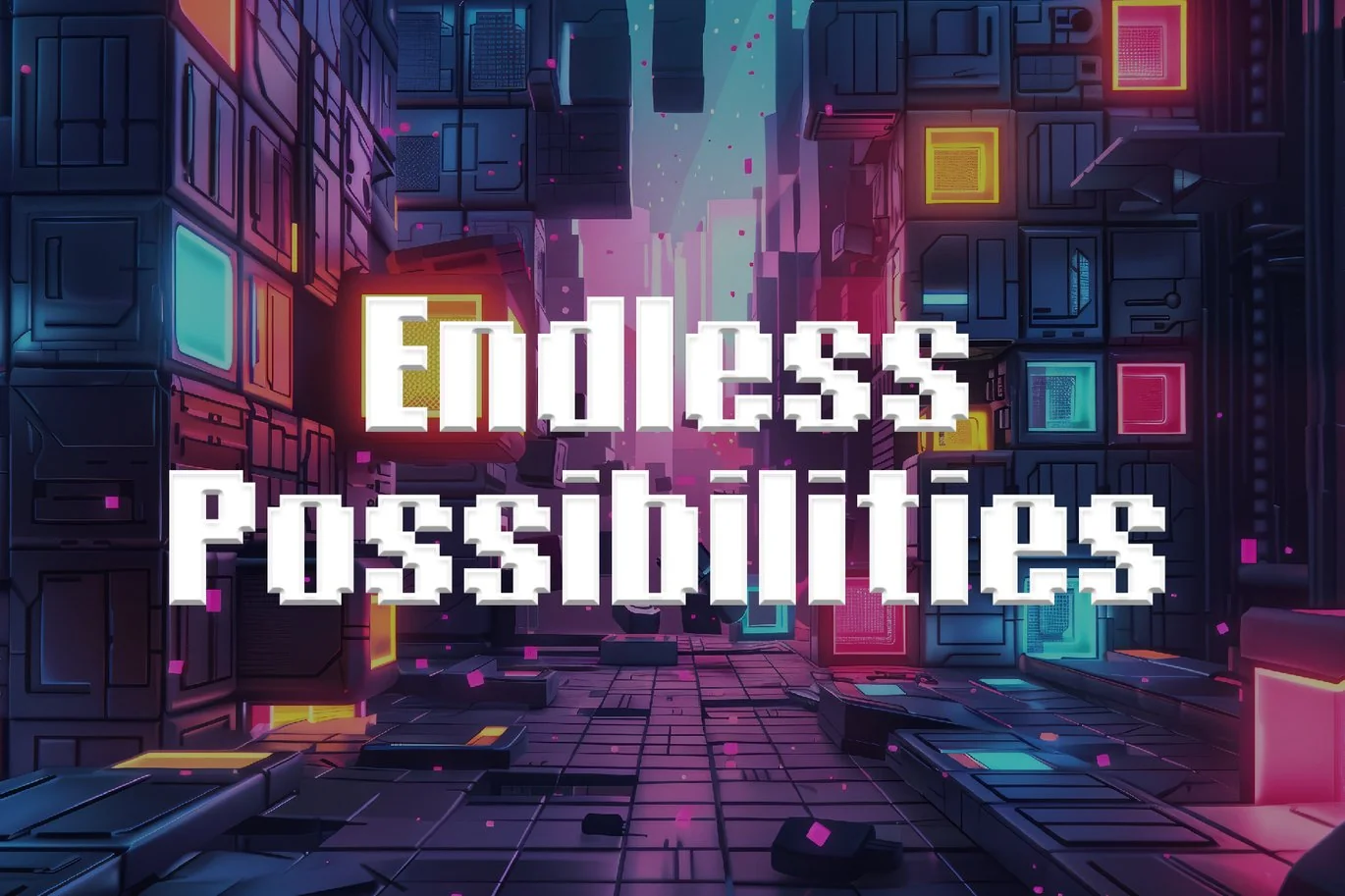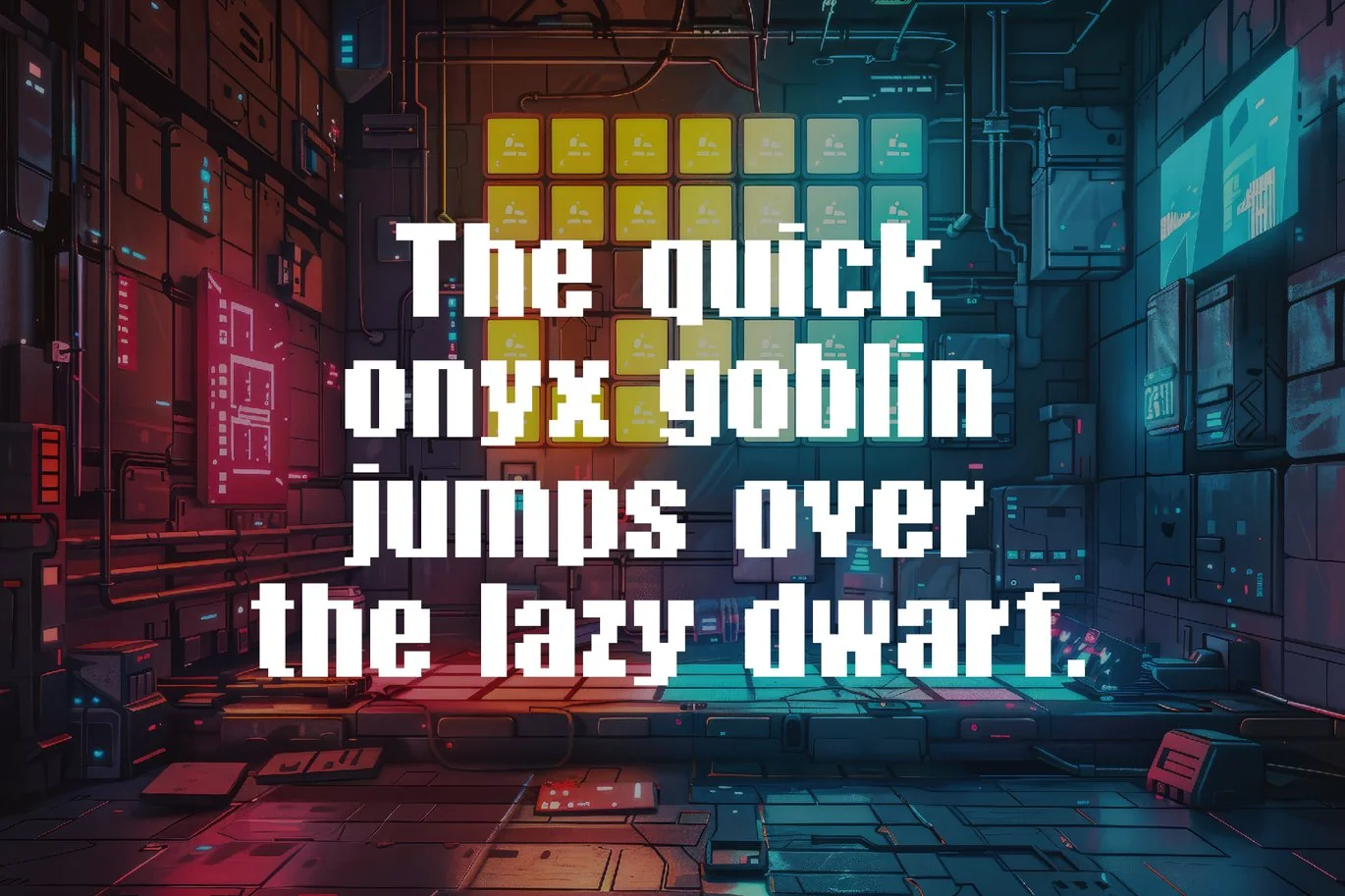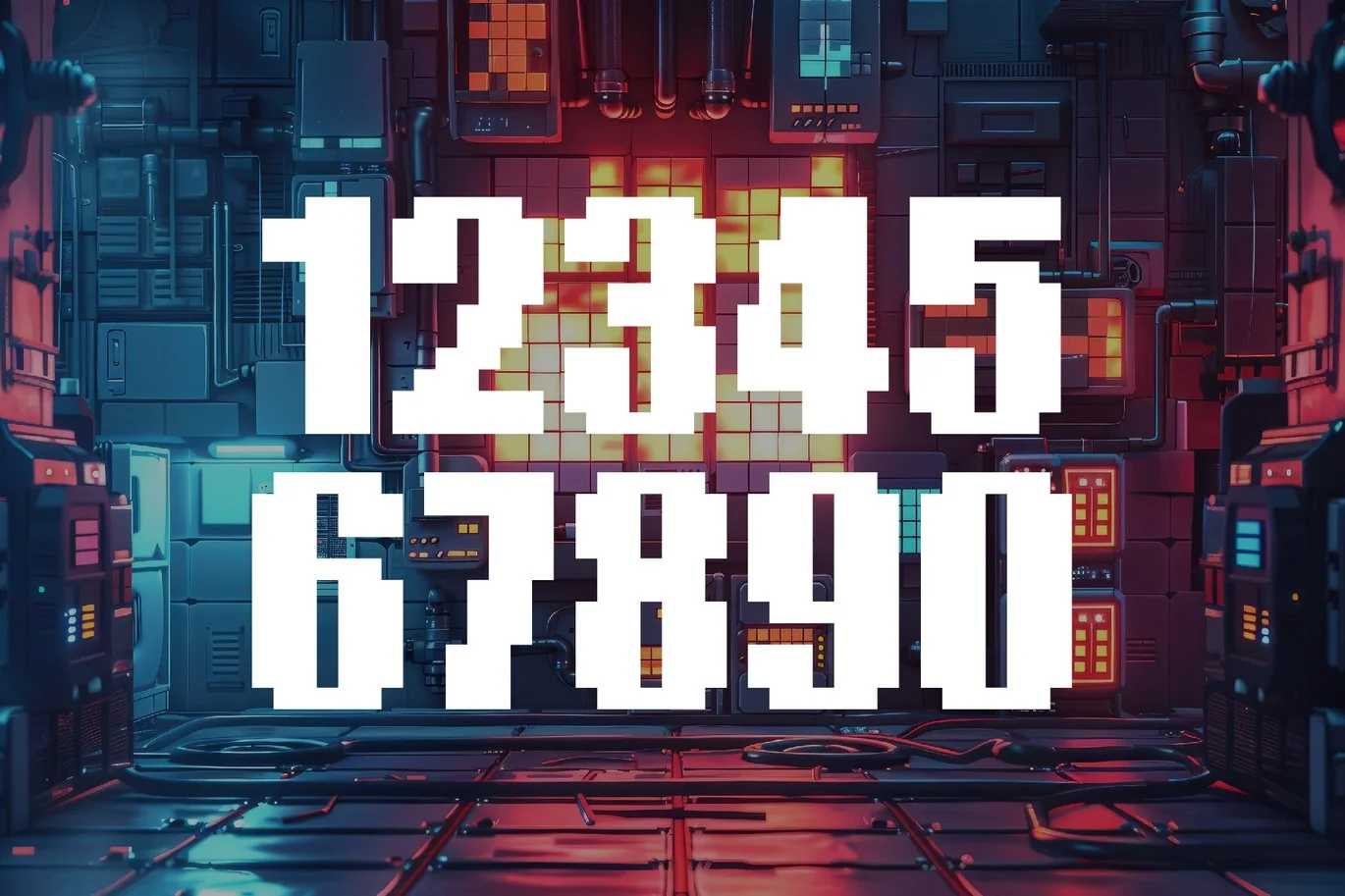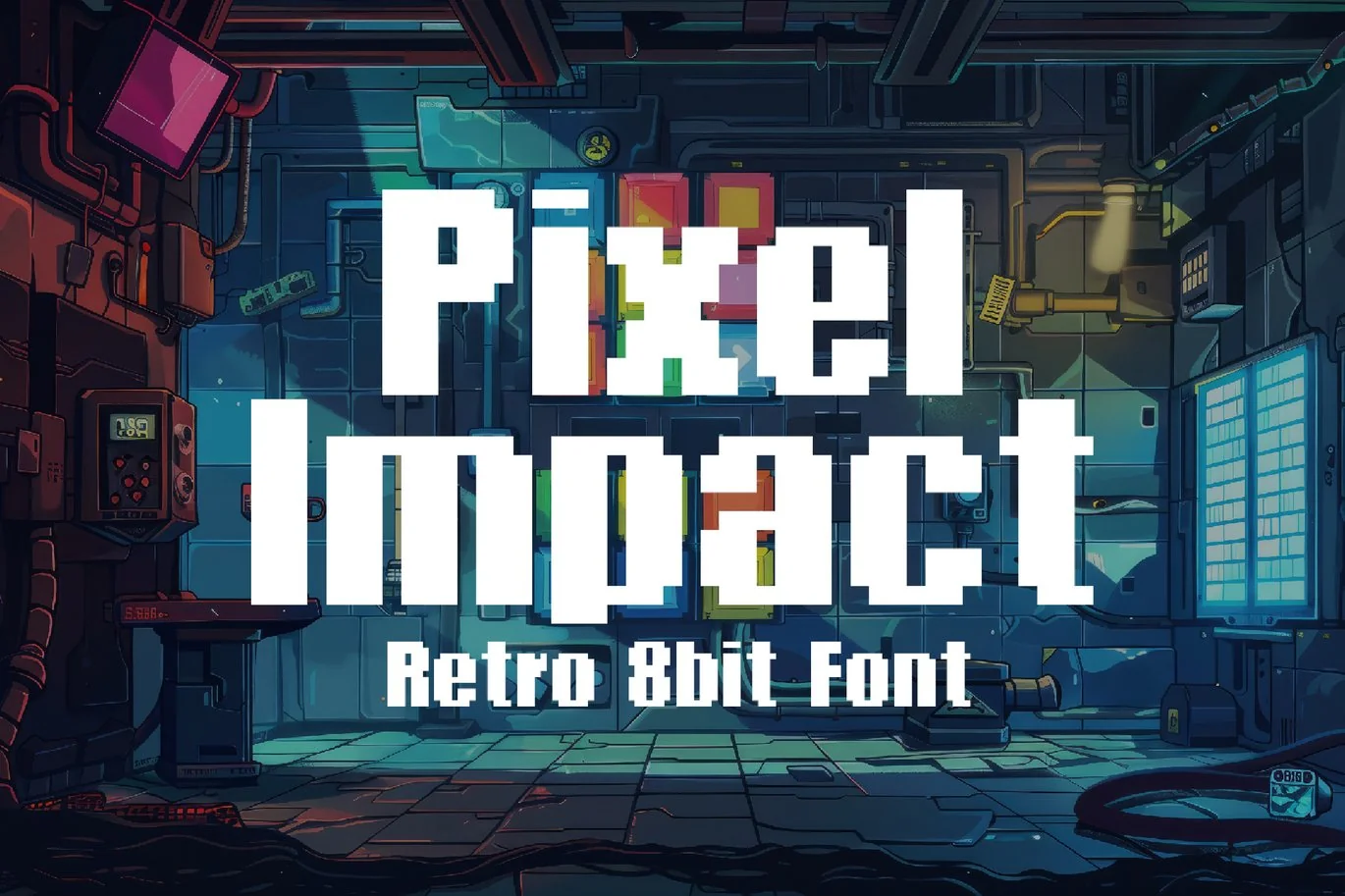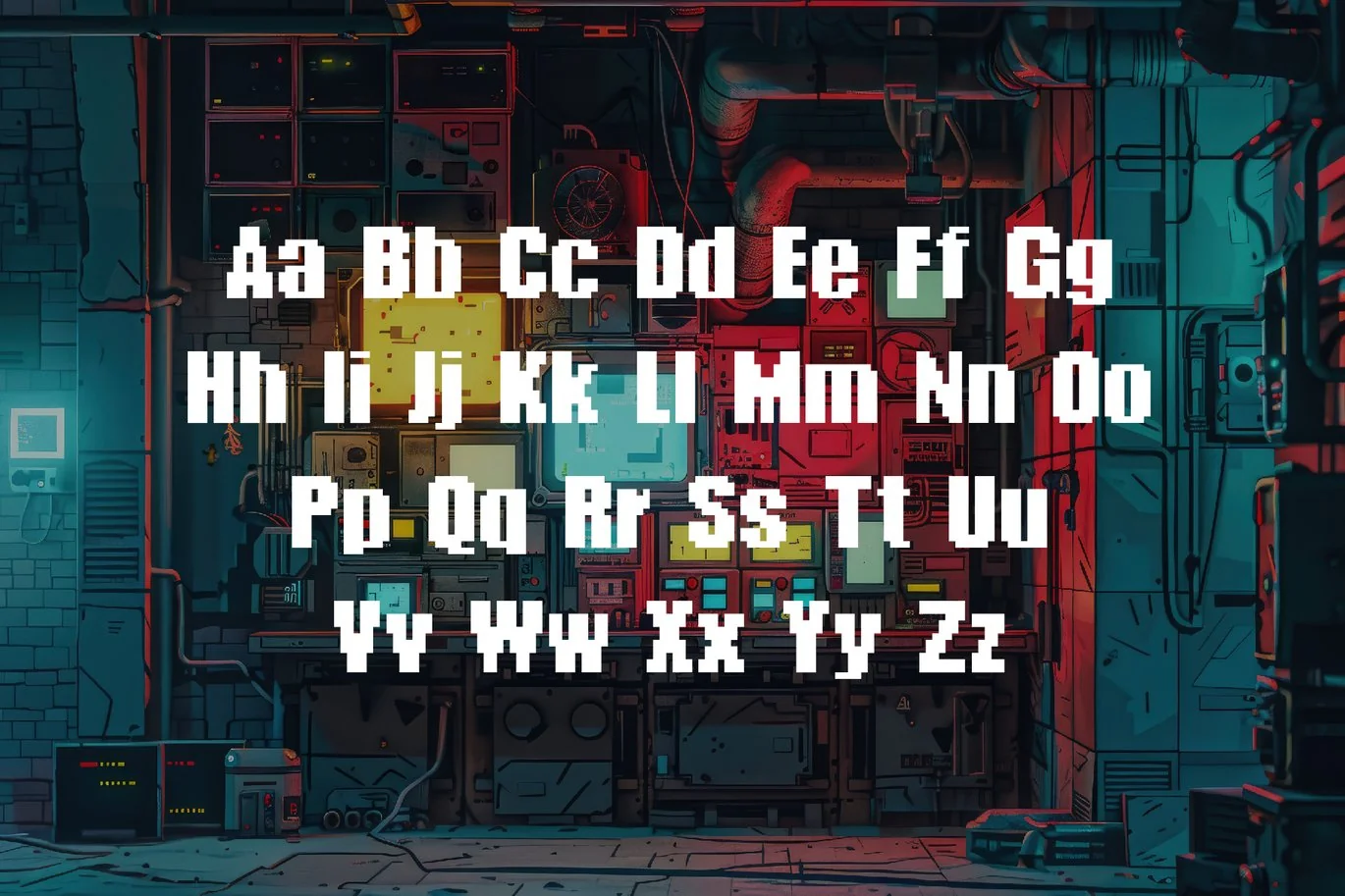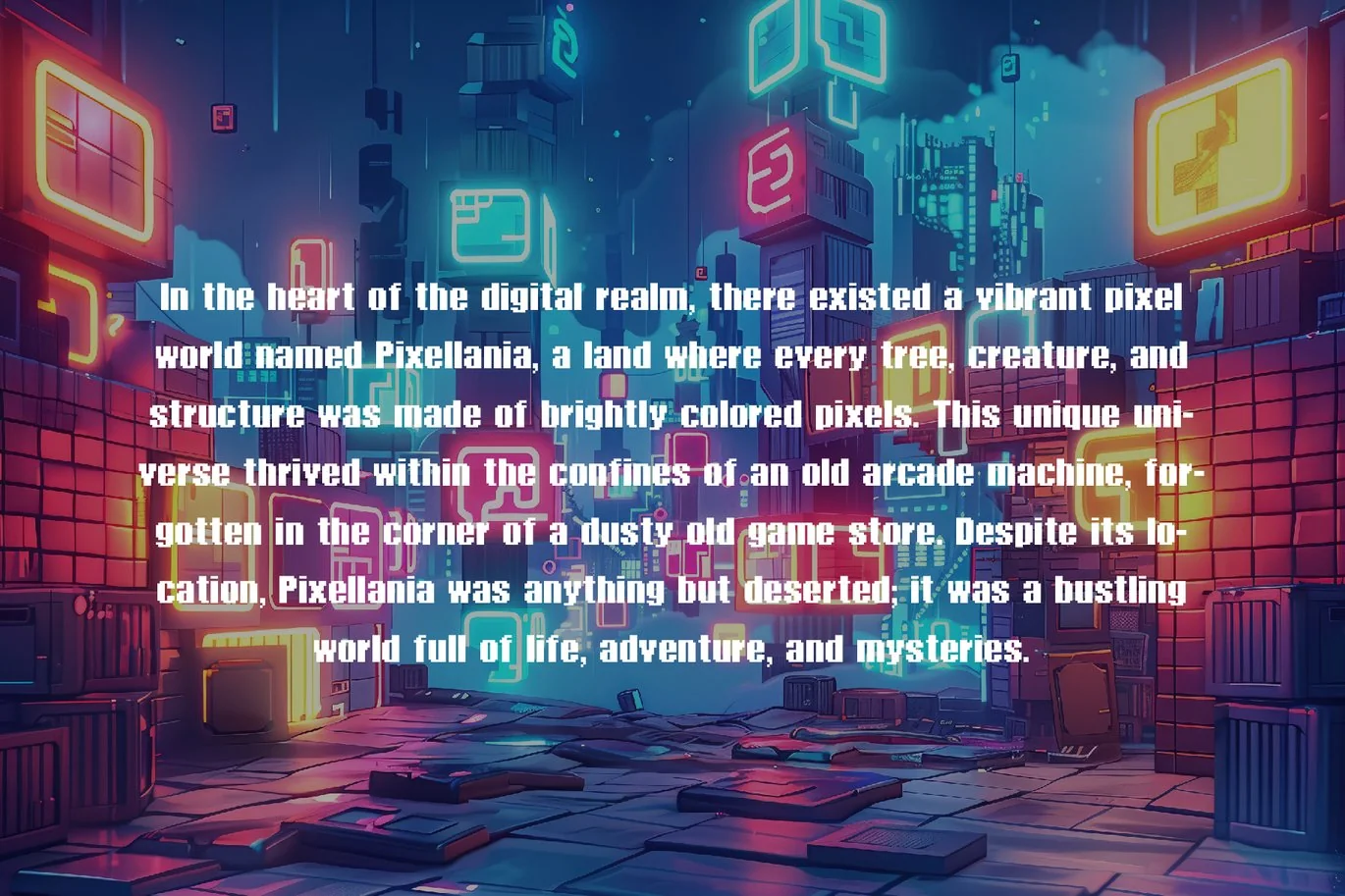
Pixel Impact – 8Bit Font
A bold and dynamic 8-bit pixel font that captures the essence of retro gaming and digital nostalgia. Designed with meticulous attention to detail, Pixel Impact brings a fresh breath of air to the world of pixel fonts, offering a perfect blend of readability and stylistic flair that stands out in any digital landscape.
Crafted for game developers, graphic designers, and retro enthusiasts alike, Pixel Impact embodies the spirit of classic arcade games and early computer graphics, while providing a modern twist that makes it versatile for various projects. Whether you’re creating a new indie game, designing a website with a vintage feel, or adding a touch of pixelated charm to your digital art, “Pixel Impact” delivers with its distinctive character and unmistakable presence.